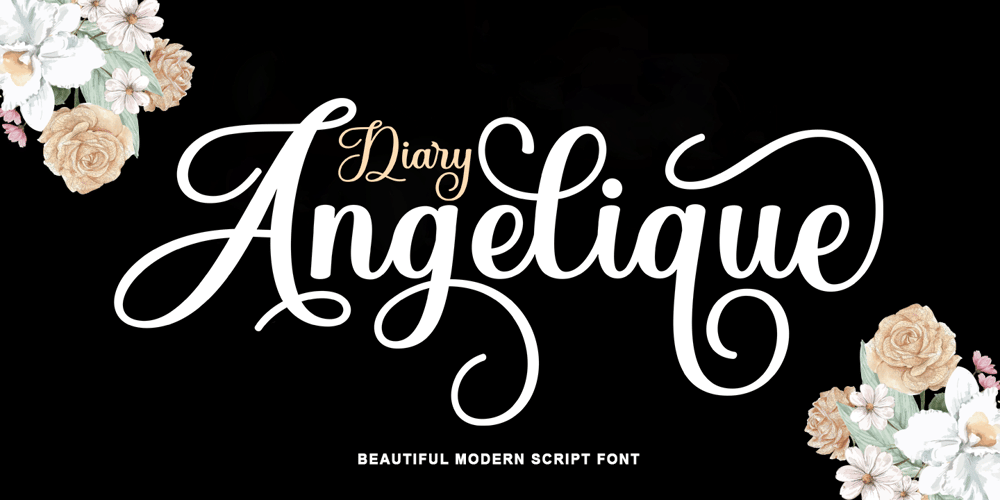
Diary Angelique Font Family was designed by Sidiq Fahmi and published by Rotterlab Studio. Diary Angelique contains 1 styles and family package options. Diary Angelique is a beautiful script font with many alternative styles, this font looks natural, elegant and perfect for any extraordinary project. Diary Angelique is suitable for various products such as invitations, product packaging, quotes, product design, crafter, labels, photography, watermarks , logos & branding. Everything can be accessed using software that supports Opentype, such as Adobe Indesign, Adobe CS Illustrator, Adobe Photoshop CC, and Corel Draw.